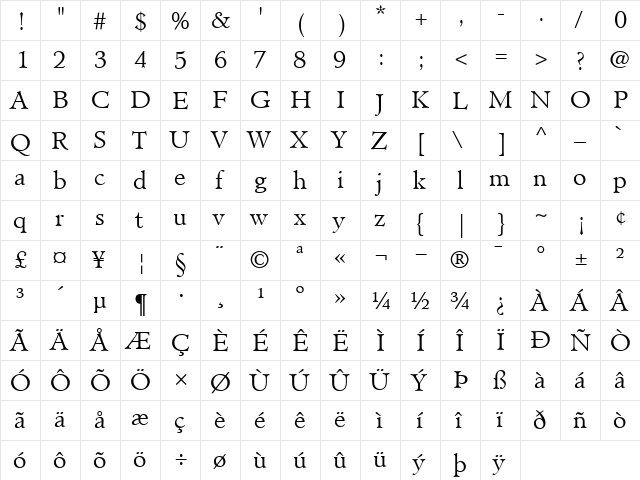
Minister-Light Light
Design Context for Minister-Light Typeface
Minister-Light offers clean, dependable letterforms without strong stylistic allegiance, making it a practical choice for designers who need flexibility. Its slender proportions lend an understated elegance to any composition.